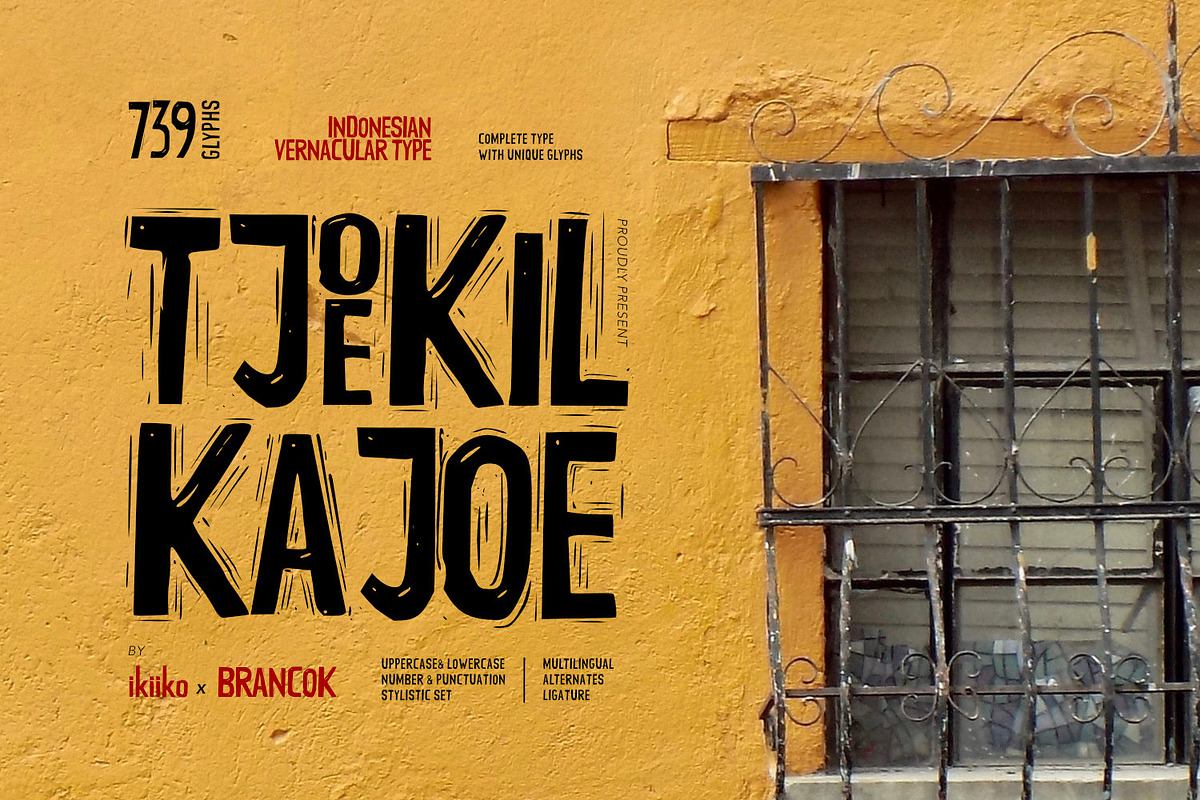
Tjoekil Kajoe - Vernacular Type Font Free Download is a bold and unique typeface designed to capture the essence of traditional and cultural lettering. With its distinct, handcrafted style, this font is perfect for creating authentic, eye-catching logos, posters, branding materials, and social media content. Its vernacular design brings personality and charm, making it ideal for creative projects that require a rustic, organic feel. Whether you're designing for a local brand, a cultural event, or a creative campaign, Tjoekil Kajoe - Vernacular Type Font Free Download lets you experiment with its artistic style in personal projects before purchasing a commercial license. Add an authentic, creative touch to your designs with this beautifully crafted vernacular type font.